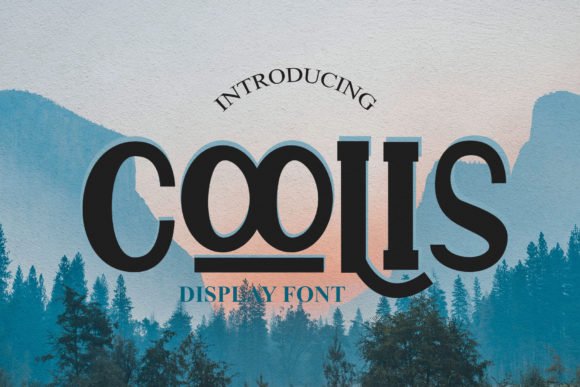
Coolis Font: Free Download Now
Coolis Font – Free Download
Introduction to Coolis Font
Coolis is a bold and adaptable display font.
👤 Author Letterdy-Studio
This font is PUA encoded which means you can access all of the glyphs and swashes with ease Add this chunky lettered font to your designs and notice how it makes them come alive.
Key Features of Coolis Font
Why Choose Coolis Font?
Coolis Font offers exceptional quality and versatility, making it a valuable addition to your design toolkit. Whether you’re creating for personal projects or commercial use, Coolis Font delivers professional results.